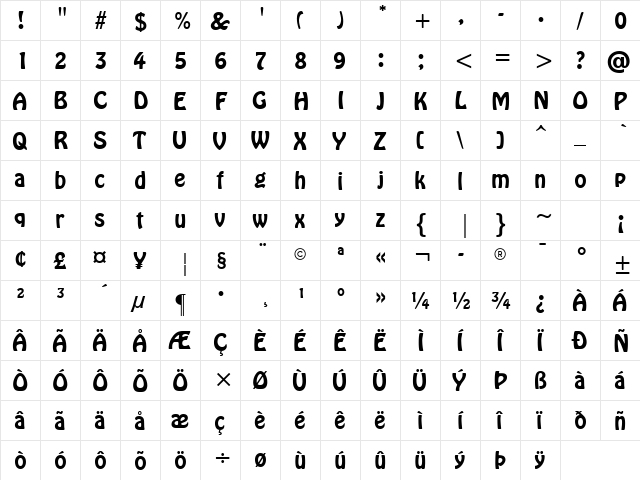
Hobo Medium ATT Regular
Design Context for Hobo Medium ATT Typeface
Hobo Medium ATT is a composed and adaptable typeface that performs quietly and consistently across a wide range of design contexts.